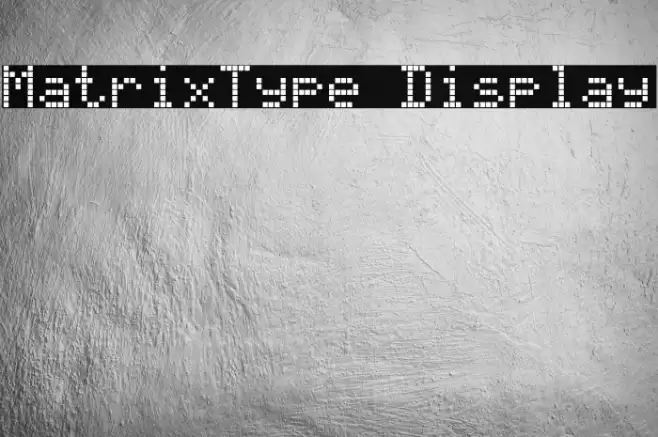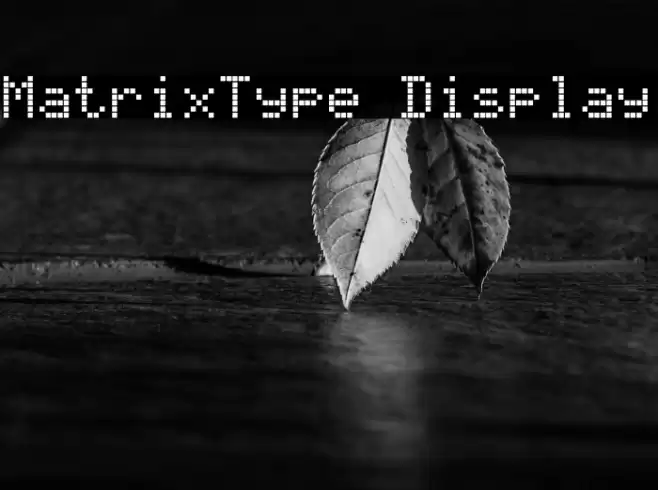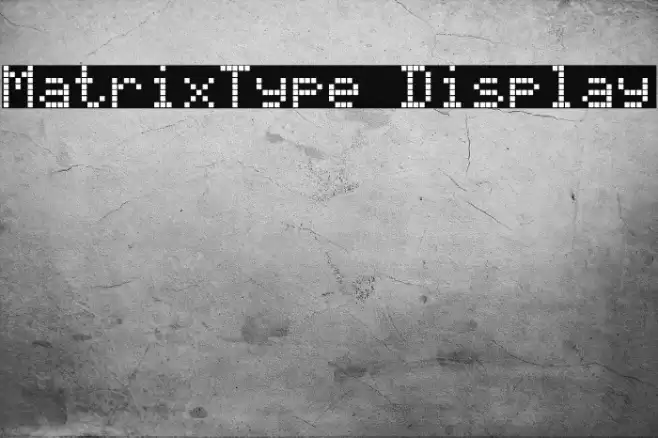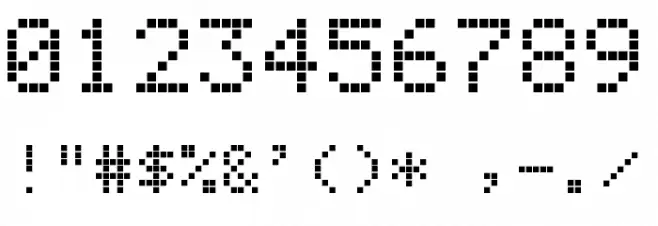
MatrixType Display Font
MatrixType Display Description
This font features a distinctive pixelated design, reminiscent of early digital displays and retro video games. Each character is constructed from a grid of small squares, giving it a blocky and geometric appearance. The uniformity in the pixel size across all characters creates a cohesive and structured look. Despite its simplicity, the font maintains legibility and clarity, making it suitable for digital-themed projects. The uppercase and lowercase letters, numbers, and special characters all adhere to this pixelated style, ensuring consistency throughout.
A pixelated, retro-style font with a blocky, geometric appearance from Uncategorized fonts.
- Font: MatrixType Display
- Proposed Projects: Ideal for retro video game graphics, digital art projects, tech-themed posters, and any design requiring a nostalgic digital aesthetic.
- Overall Style: Retro, Digital
- Use Case: Logos, Headlines, Digital displays